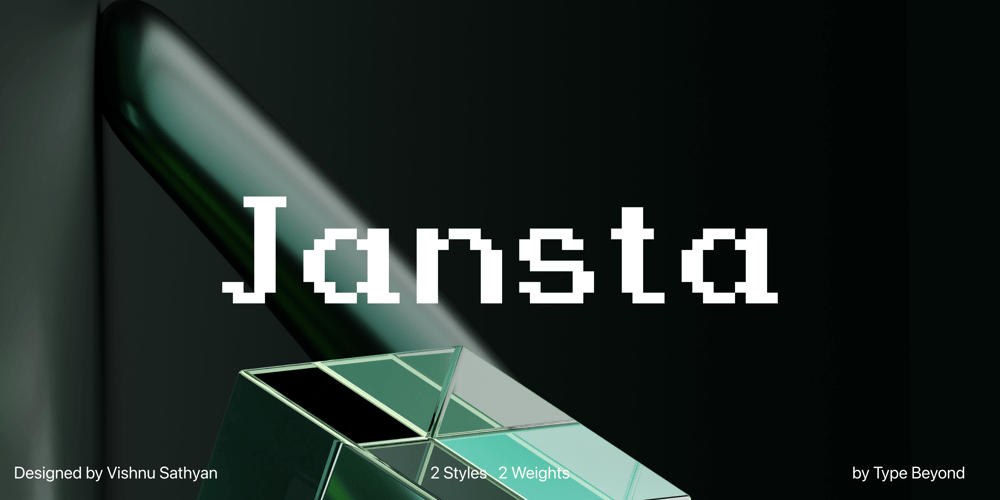
Jansta Font Family was designed by Vishnu Sathyan and published by Vishnu Sathyan. Jansta contains 4 styles and family package options. A pixel font designed to add a retro, digital feel to your projects. Inspired by classic video game fonts, Jansta’s precise and clean pixel design creates a unique aesthetic that’s perfect for any project that requires a futuristic or vintage look. Its versatility and readability make it a great choice for both print and digital designs.